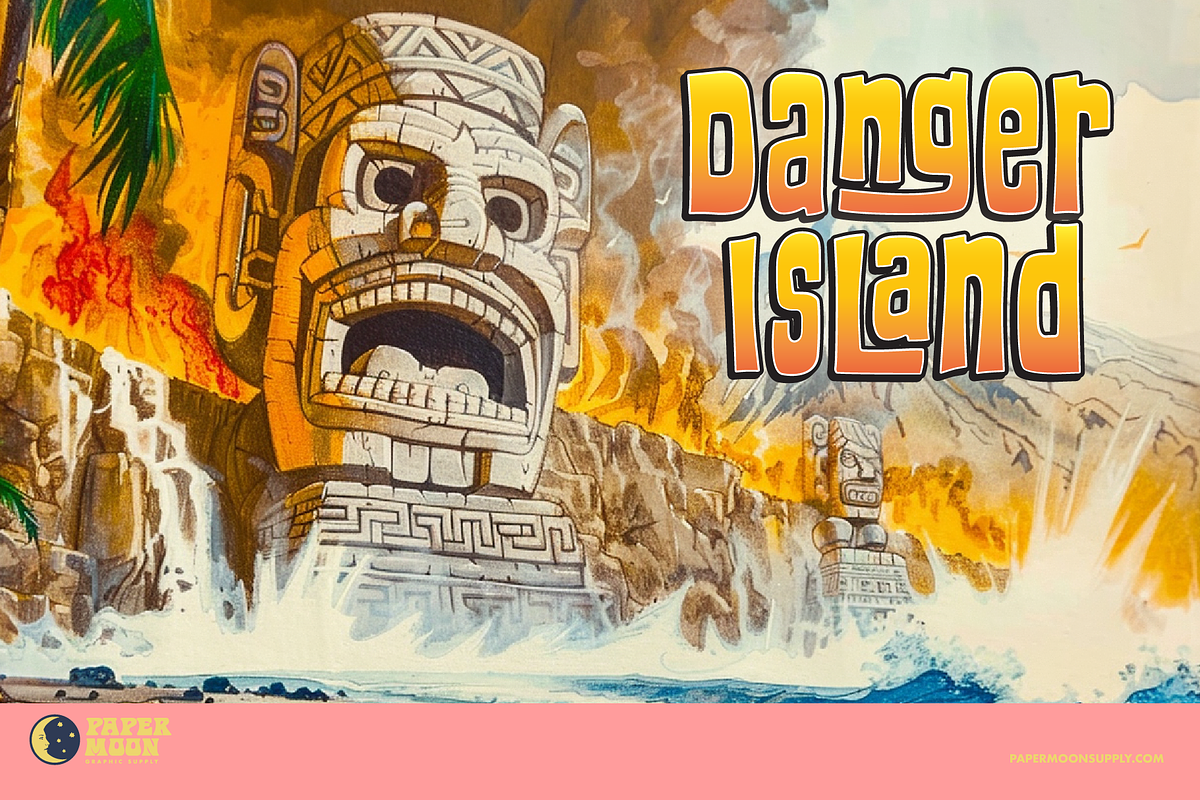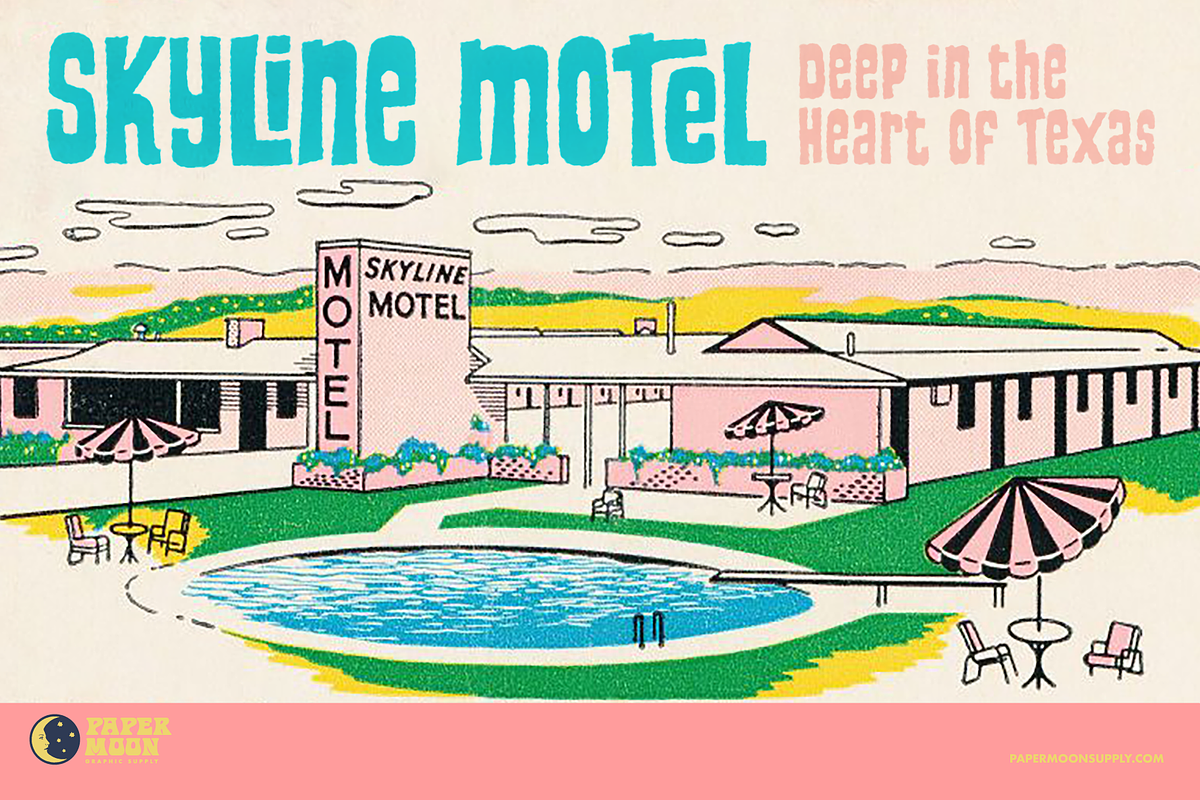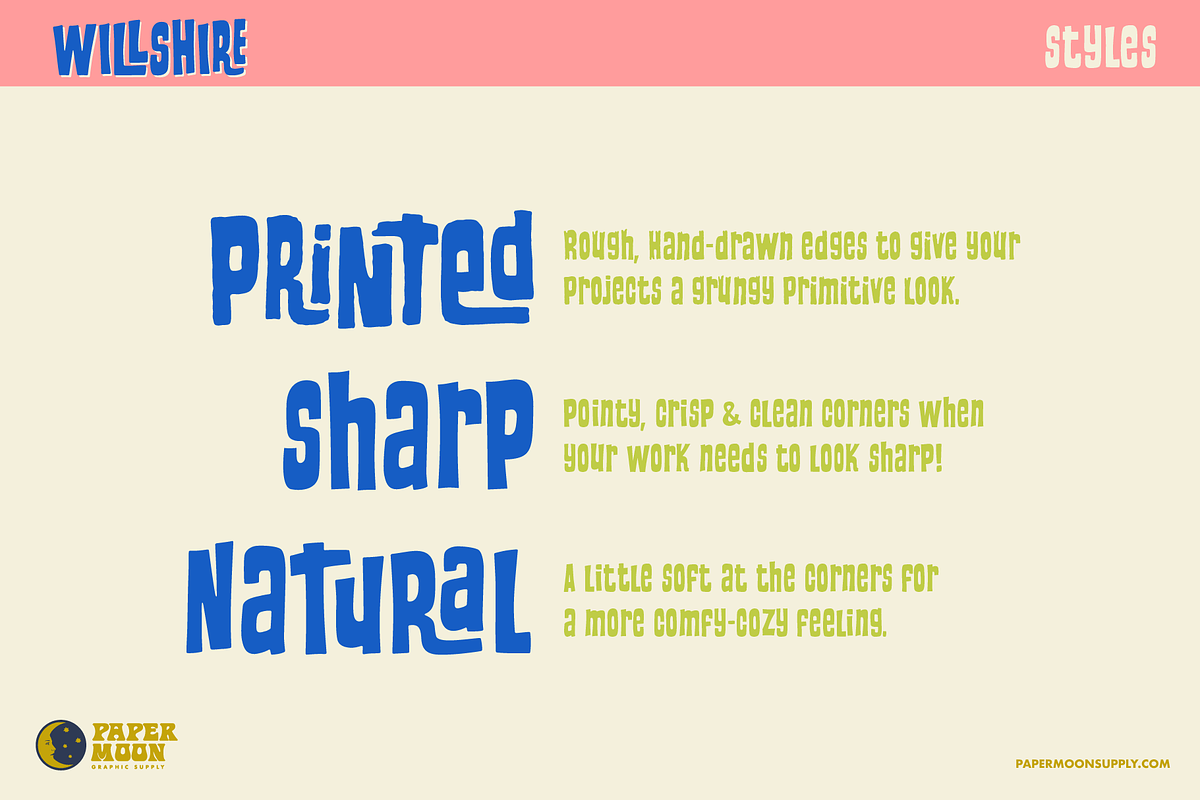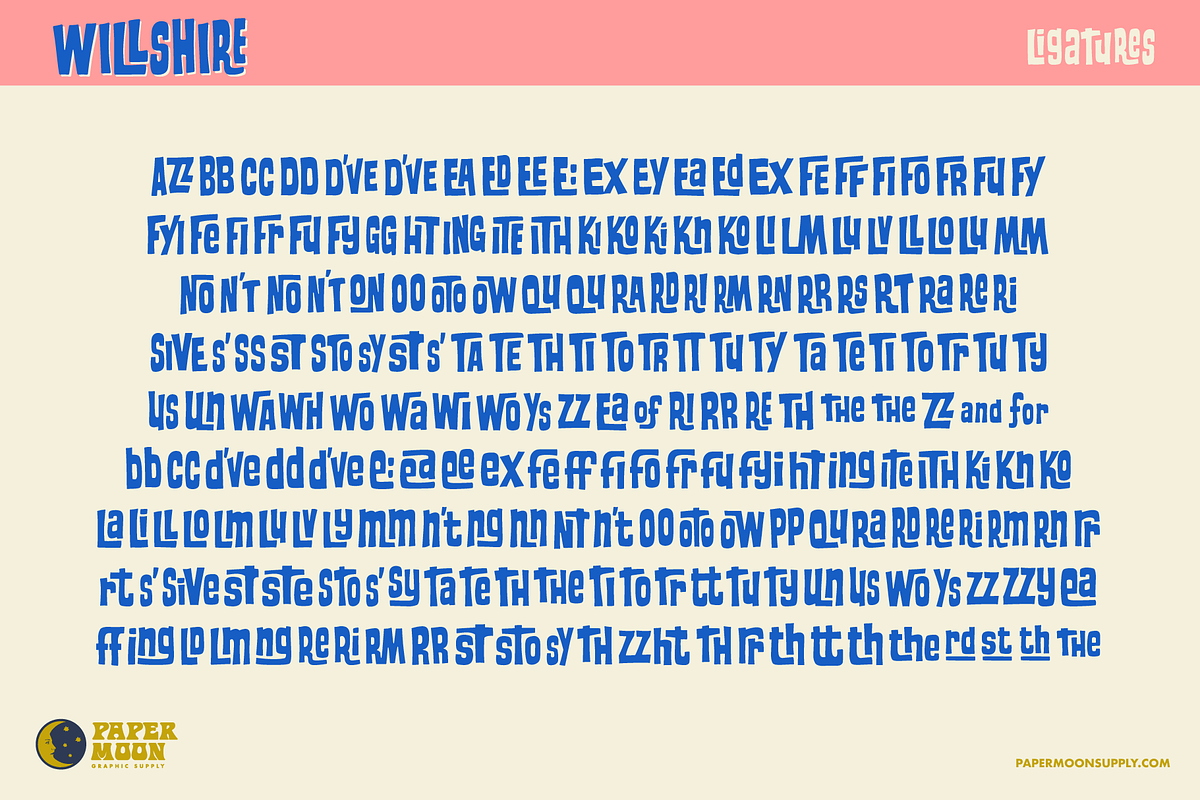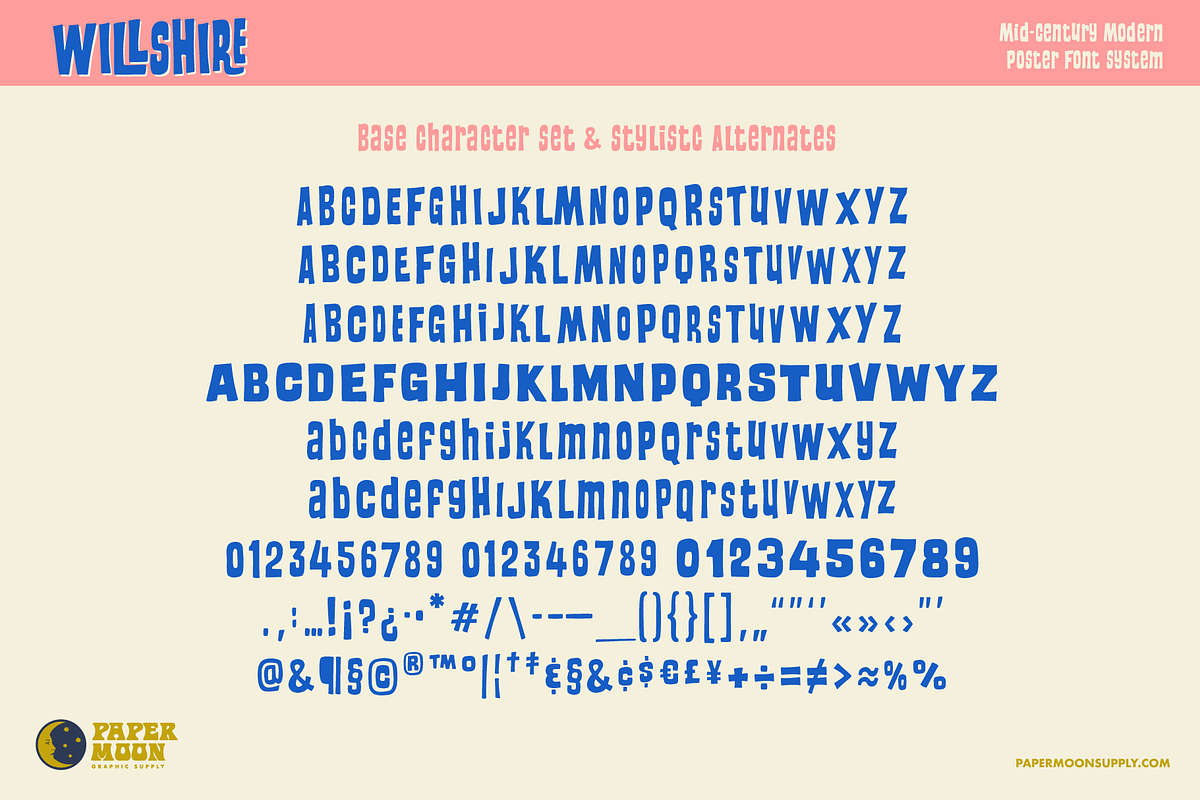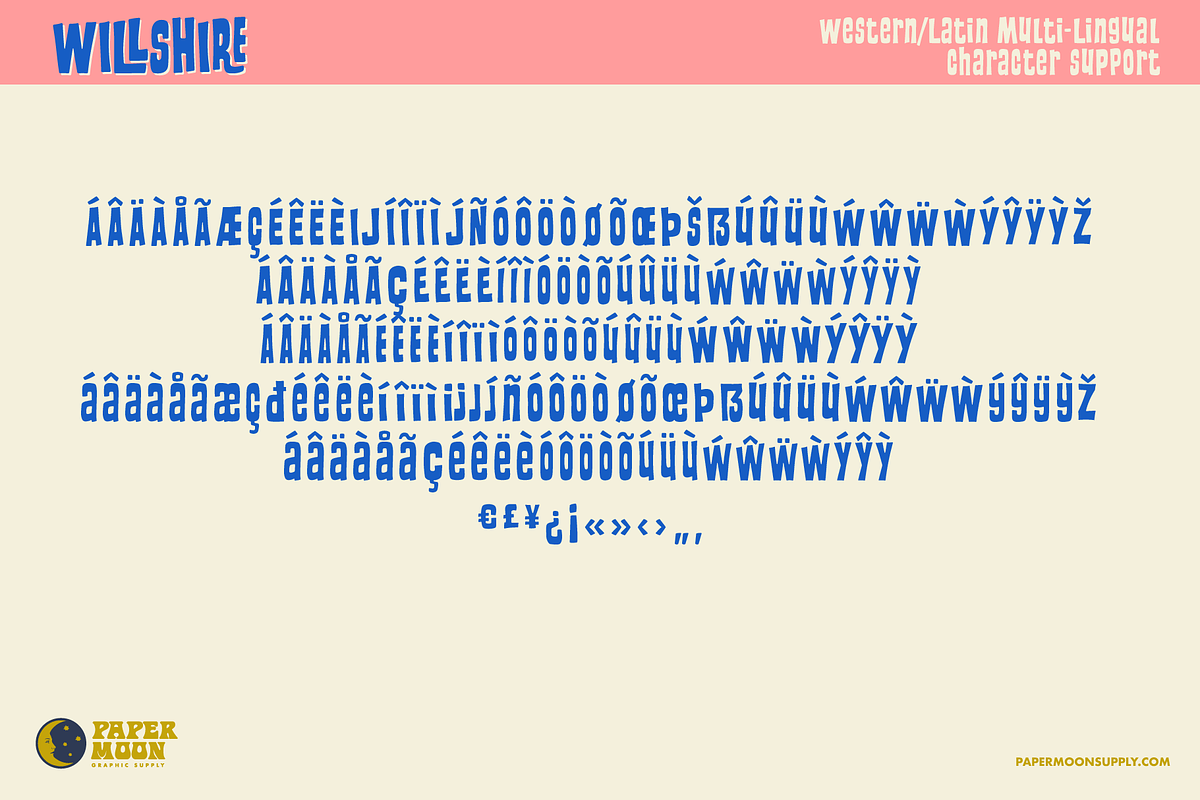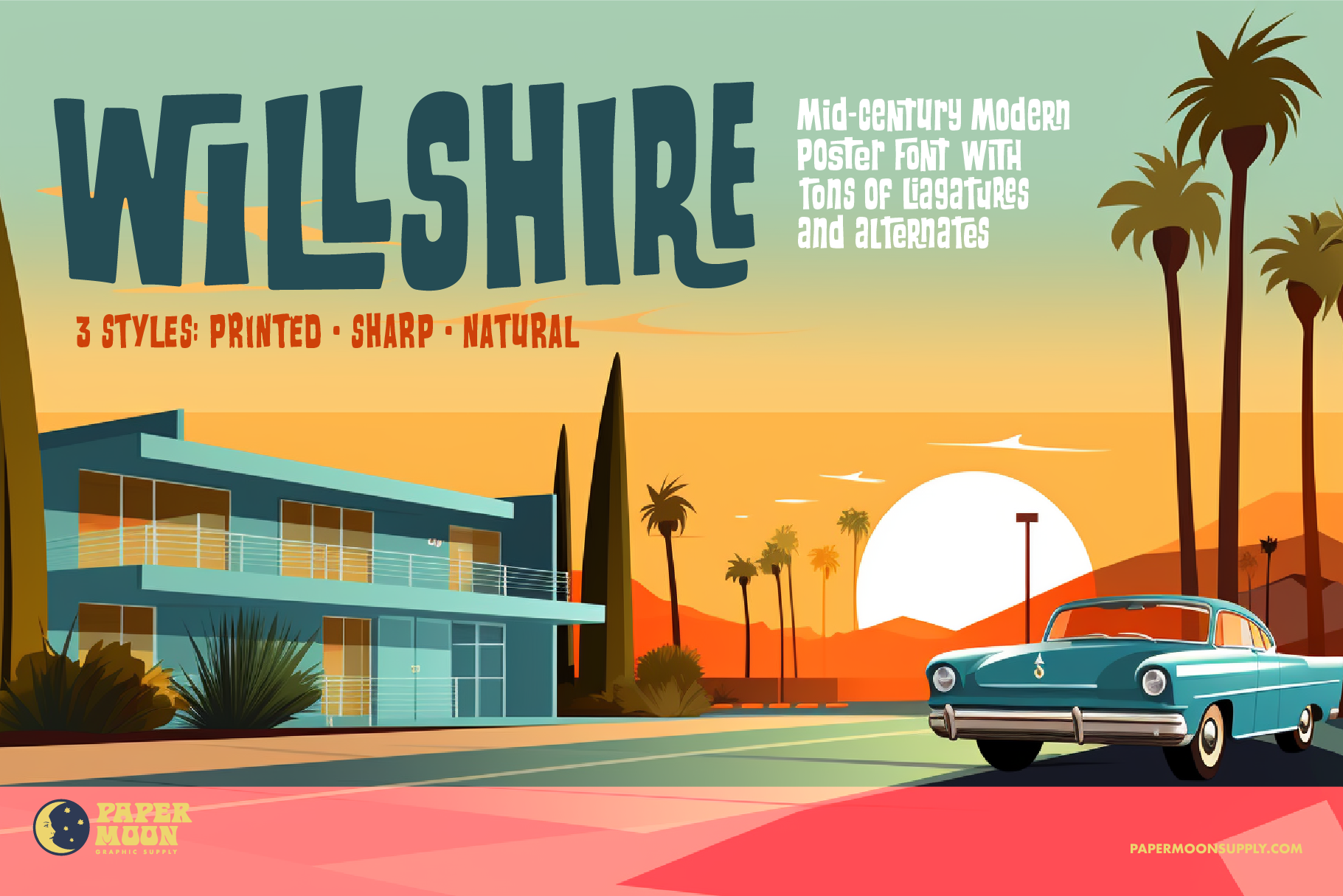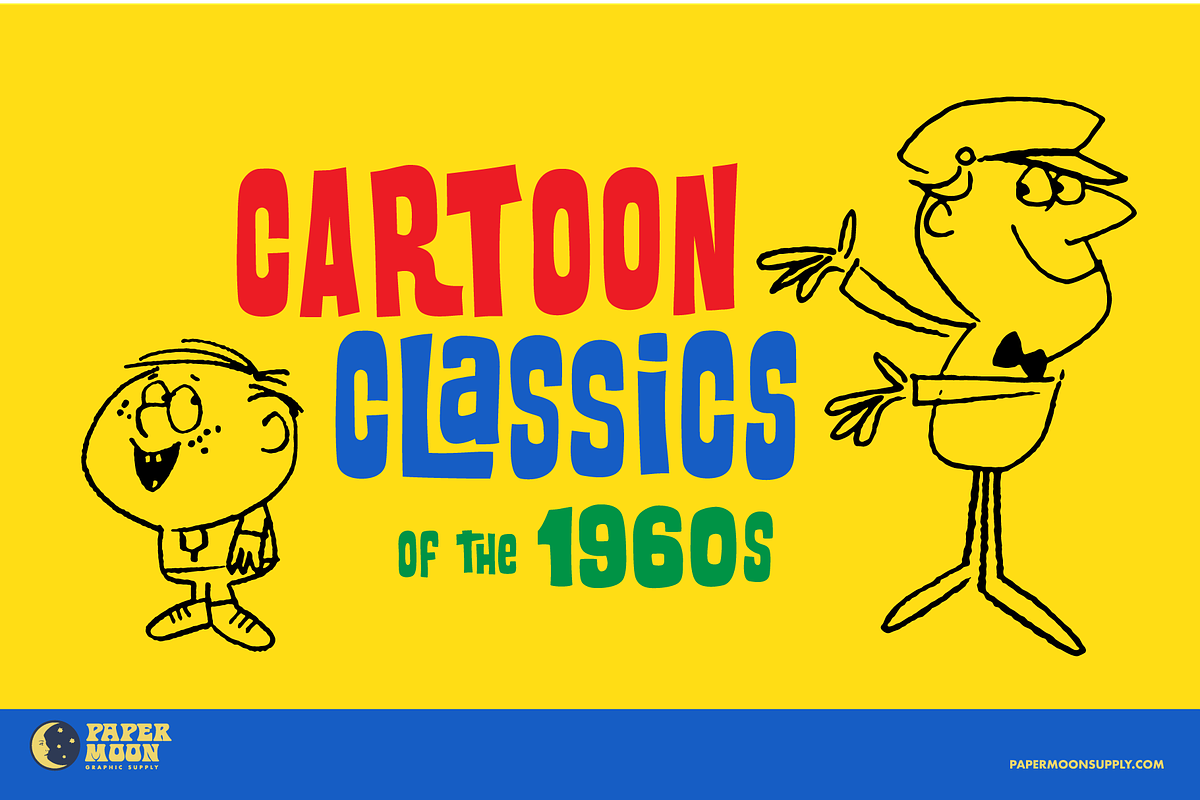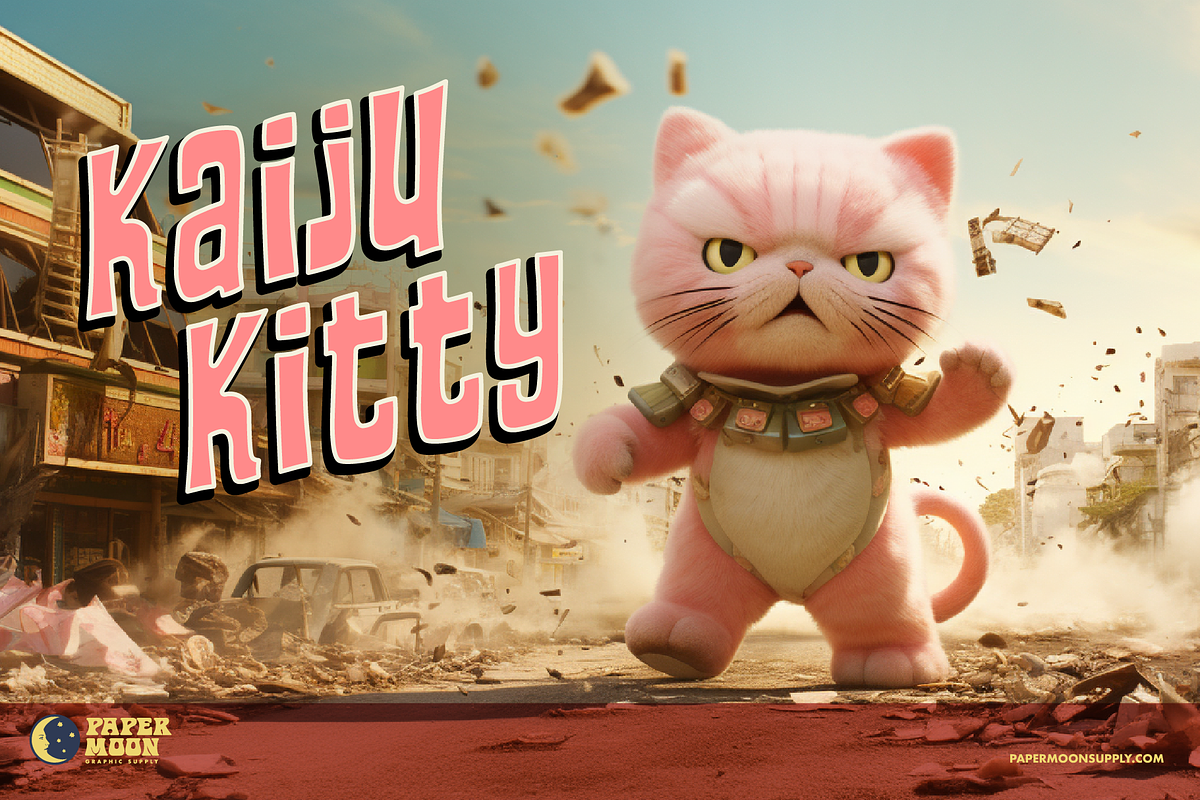
PM Willshire Mid-Century Style Font
PM Willshire - A new mid-century modern font from Paper Moon Graphic Supply
PM Willshire is inspired by casual 1960s fonts used on everything from theme park signage to television titles. It's perfect for tiki-themed graphics, summer events, podcast titles, and toy packaging.
- Three styles: Printed, Sharp, and Natural (soft)
- Complete alphabet, number, and punctuation sets
- Optimized for OpenType with tons of ligatures and contextual alternates
PM Wilshire was developed by award-winning illustrator and designer Scott Banks.